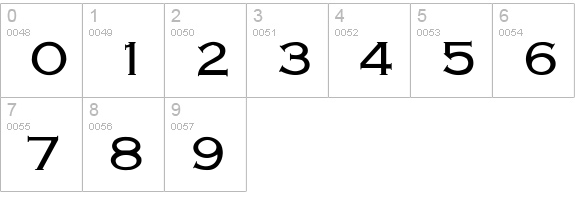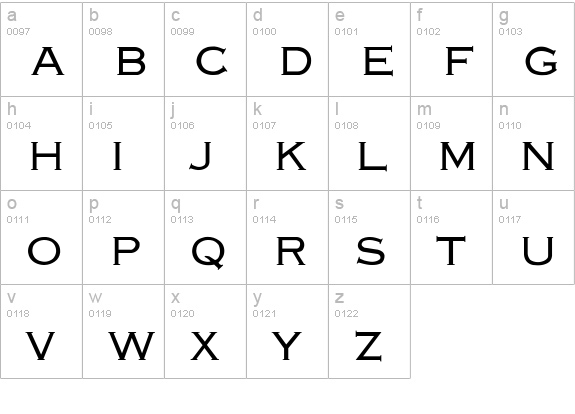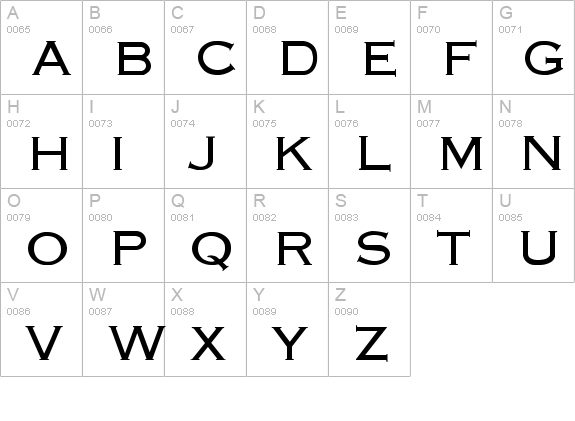
Endsaver-Light is a refined, elegant variant in the Endsaver typeface family \xE2\x80\x94 well suited to elegant body text, refined sub-headings, and luxury branding.
Endsaver-Light is a stunning and elegant font that is perfect for a wide range of design projects. With its sleek and modern look, this font is sure to make your text stand out. The clean lines and sophisticated style of Endsaver-Light make it ideal for logos, branding, headlines, and more. What's even better is that Endsaver-Light is available for free download at FontsMarket.com. This means you can easily access this beautiful font without any cost. Whether you are a professional designer or just looking to spice up your personal projects, Endsaver-Light is a fantastic choice that won't break the bank. Download Endsaver-Light today and add a touch of class and elegance to your designs!